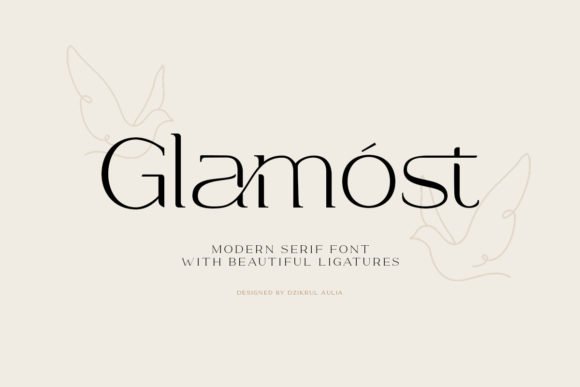
Introduction to Glamost Font
Glamost is a minimalist and elegant serif font with many ligatures that will make your projects stand out.
Glamost is a minimalist and elegant serif font with many ligatures that will make your projects stand out. You can use this font for any purpose, such as branding identity, logo, magazine, quotes, and